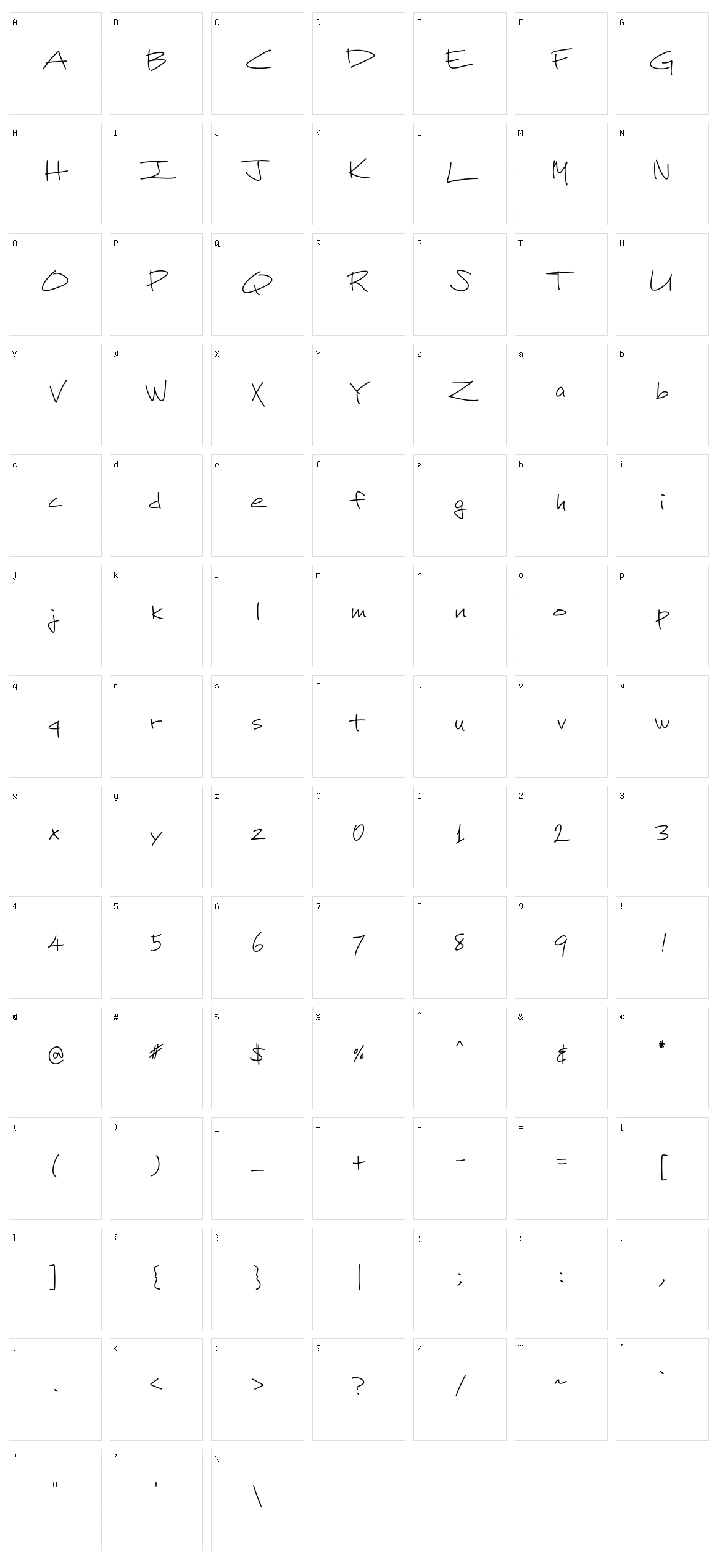
1 Ichiro
Designed by: Lee Batchelor
This typeface is based on the handwriting of Ichiro Suzuki (http://sports.yahoo.com/blogs/mlb-big-league-stew/ichiro-surprises-keeper-ichimeter-special-thank-presents-232543149--mlb.html)